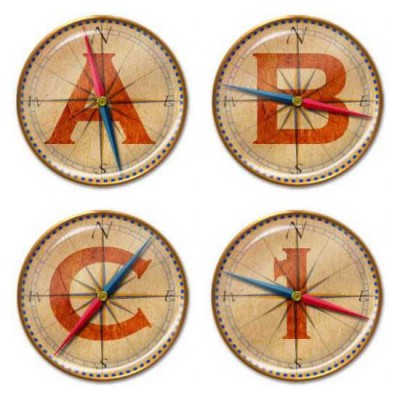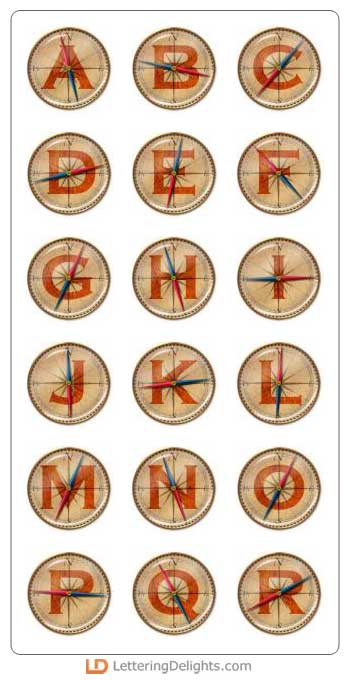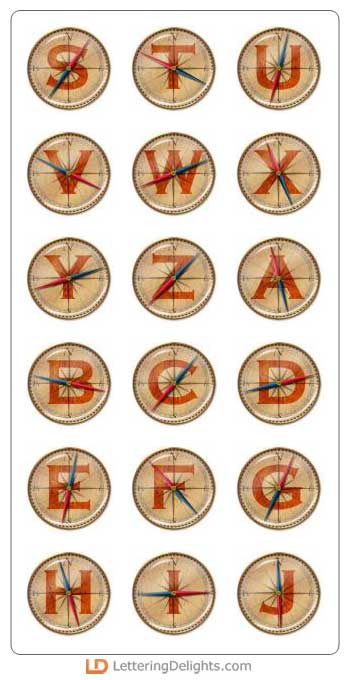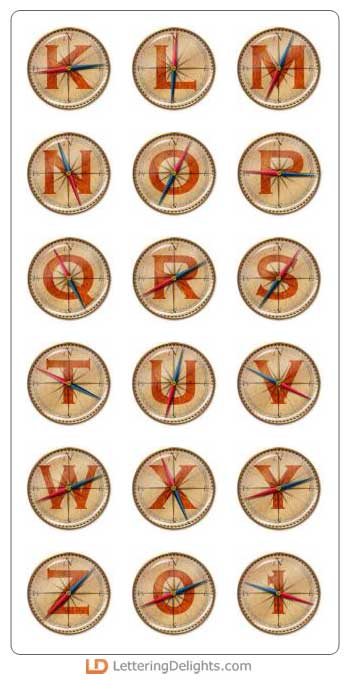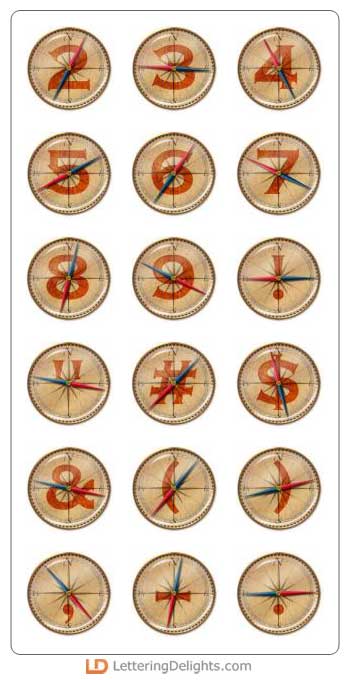
It's always helpful to have a compass so you don't lose your way. This alphabet would be perfect for your hiking or boy scout scrapbook layout. Also very useful for those adventurous vacations!